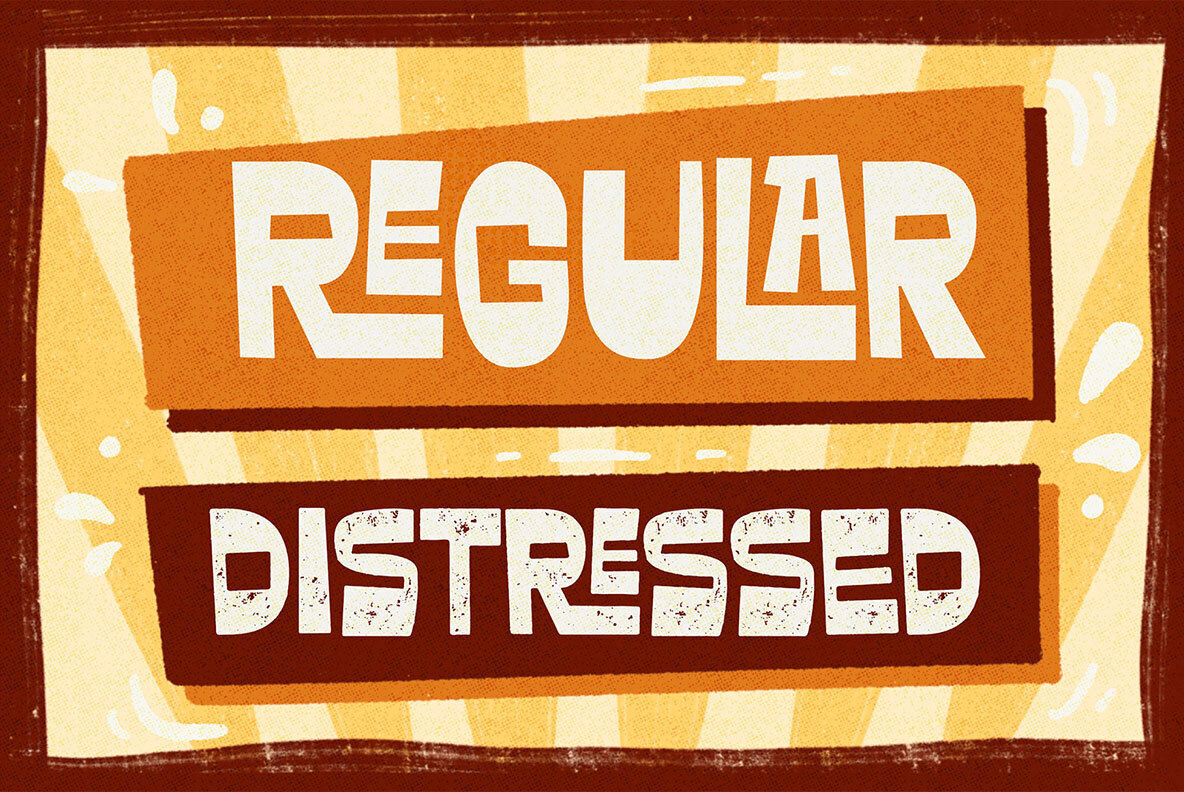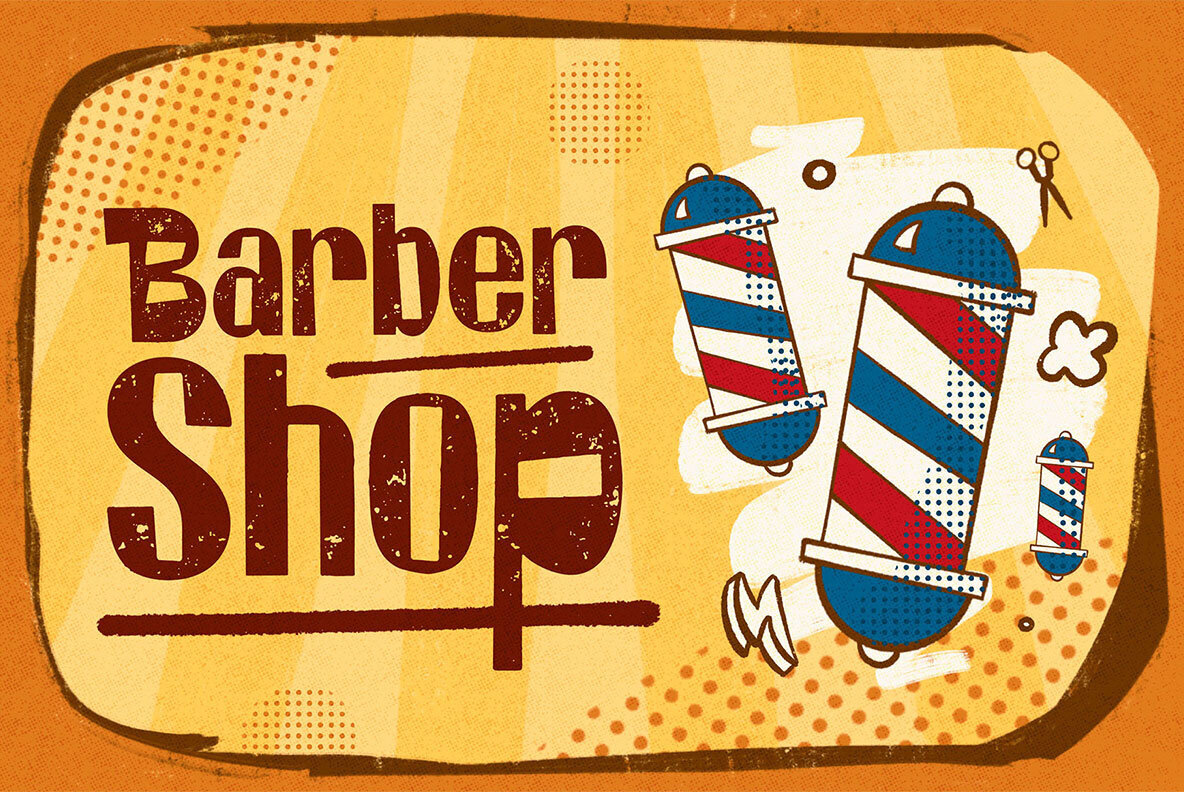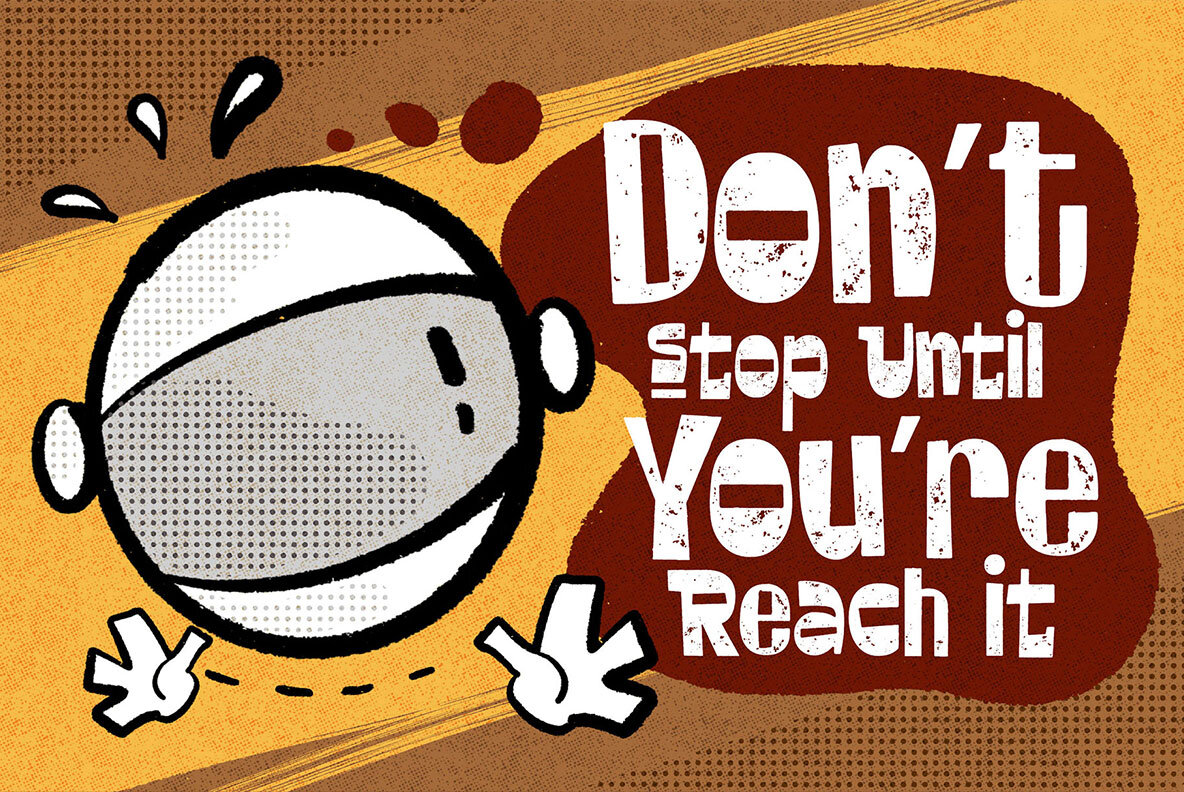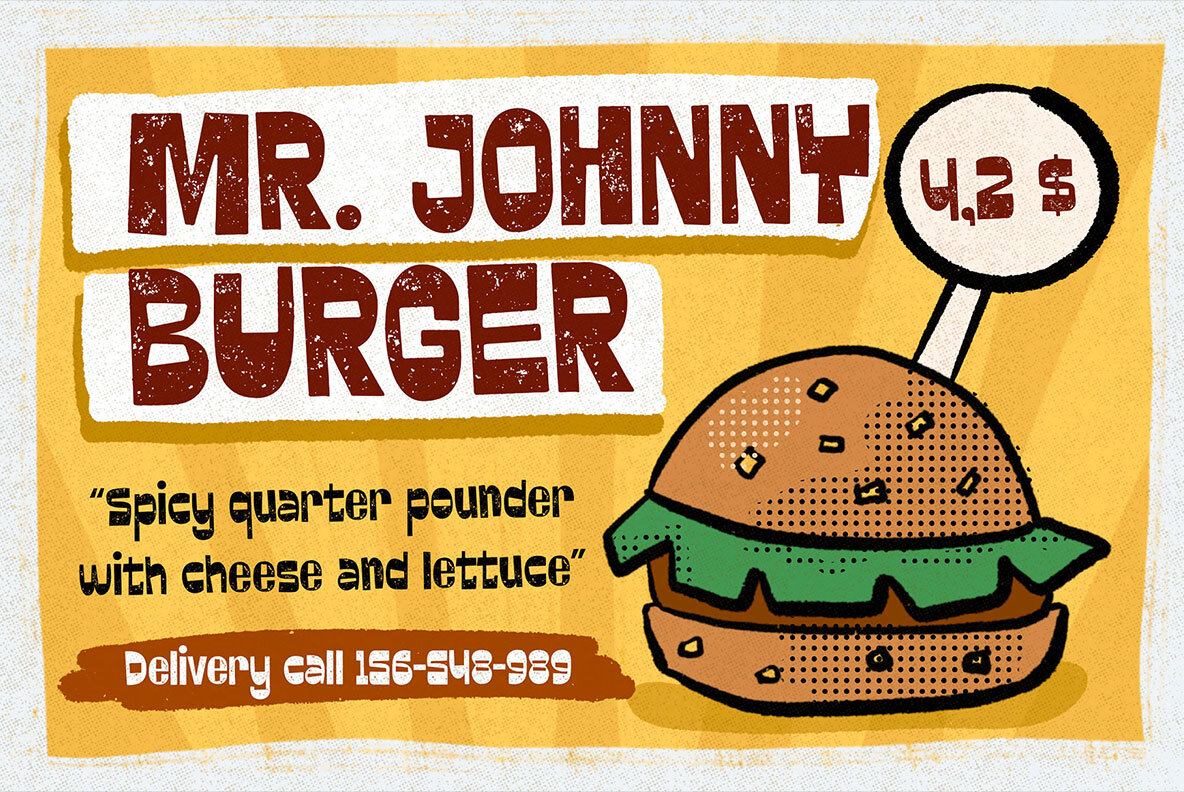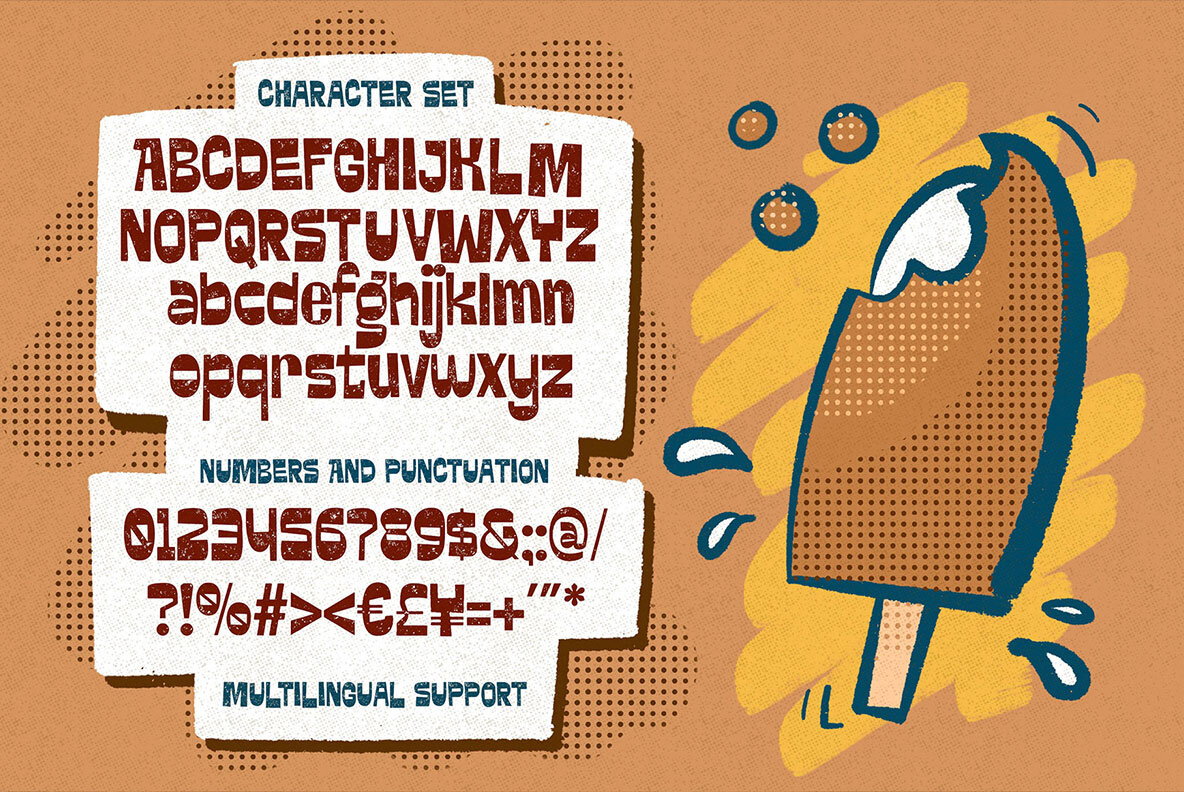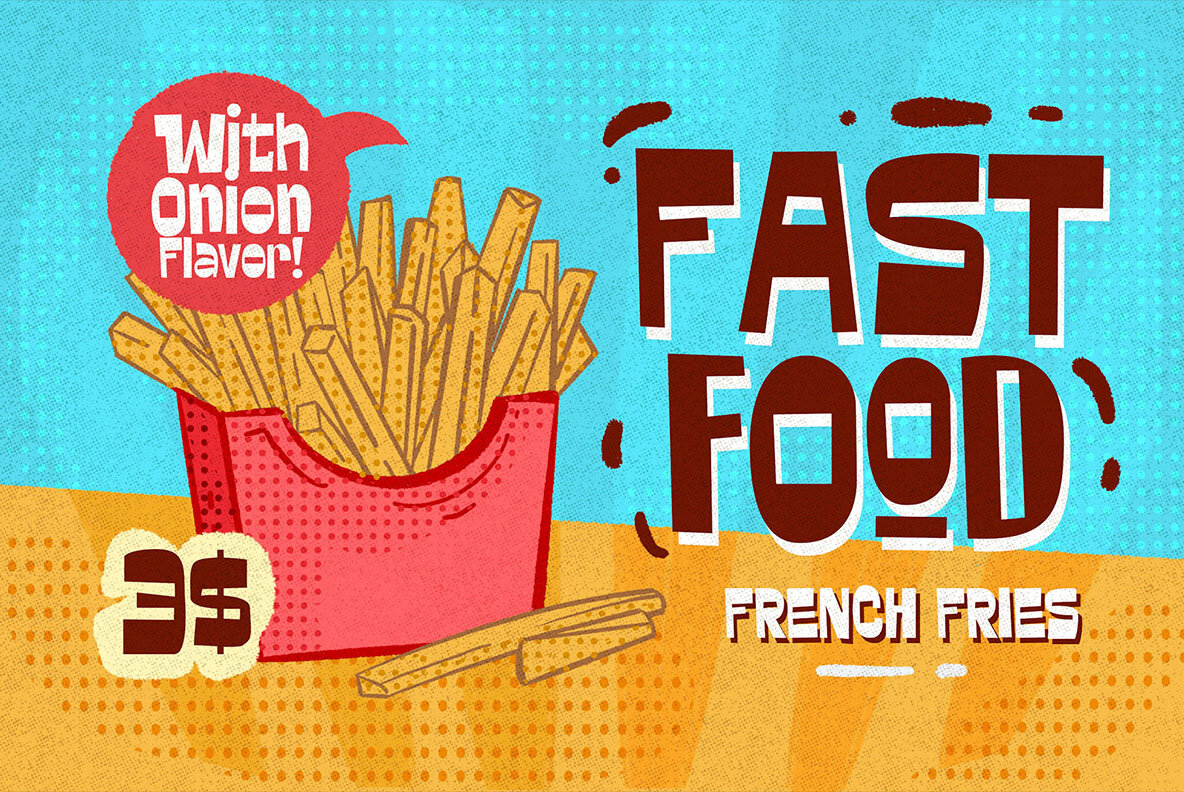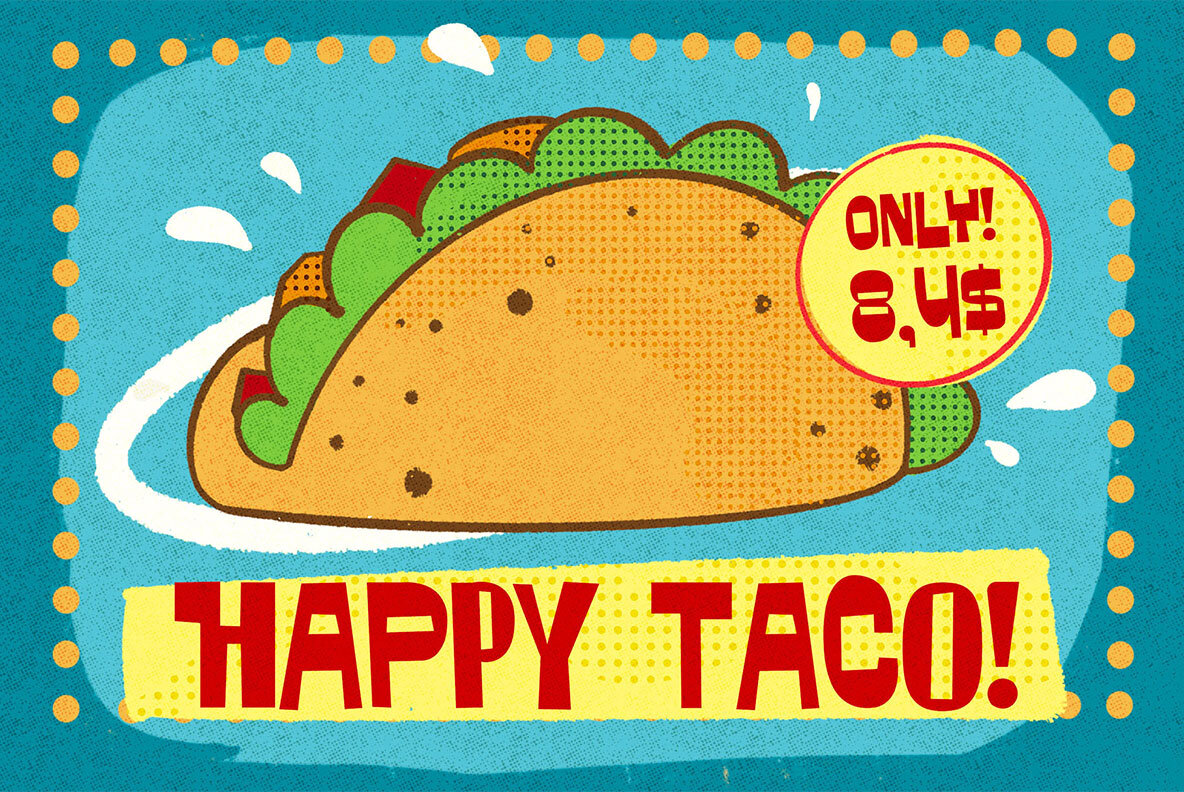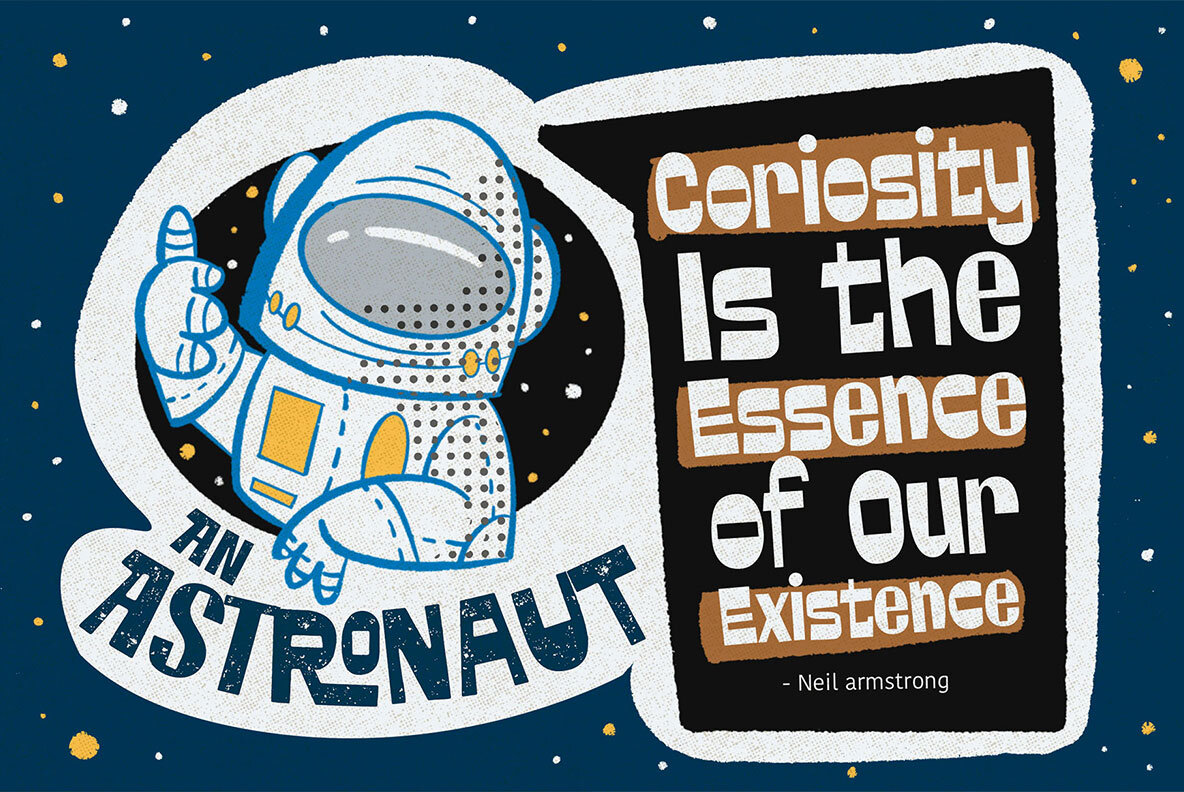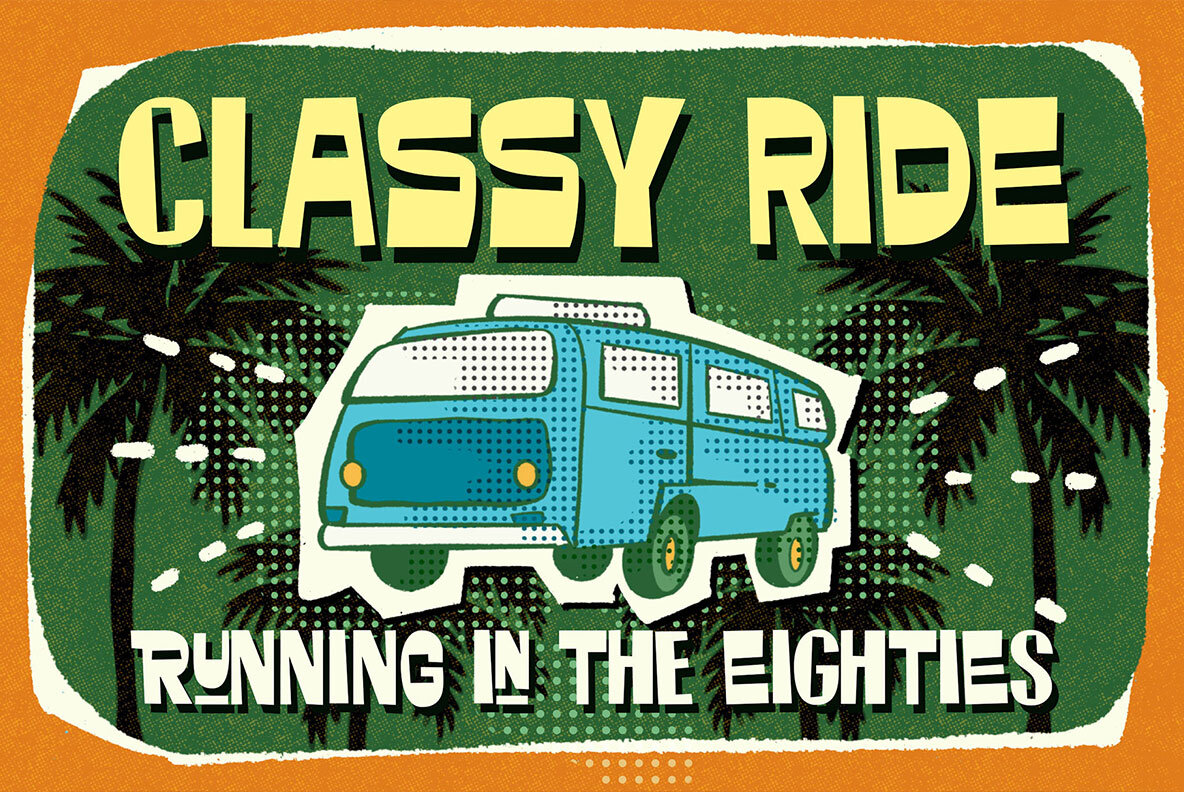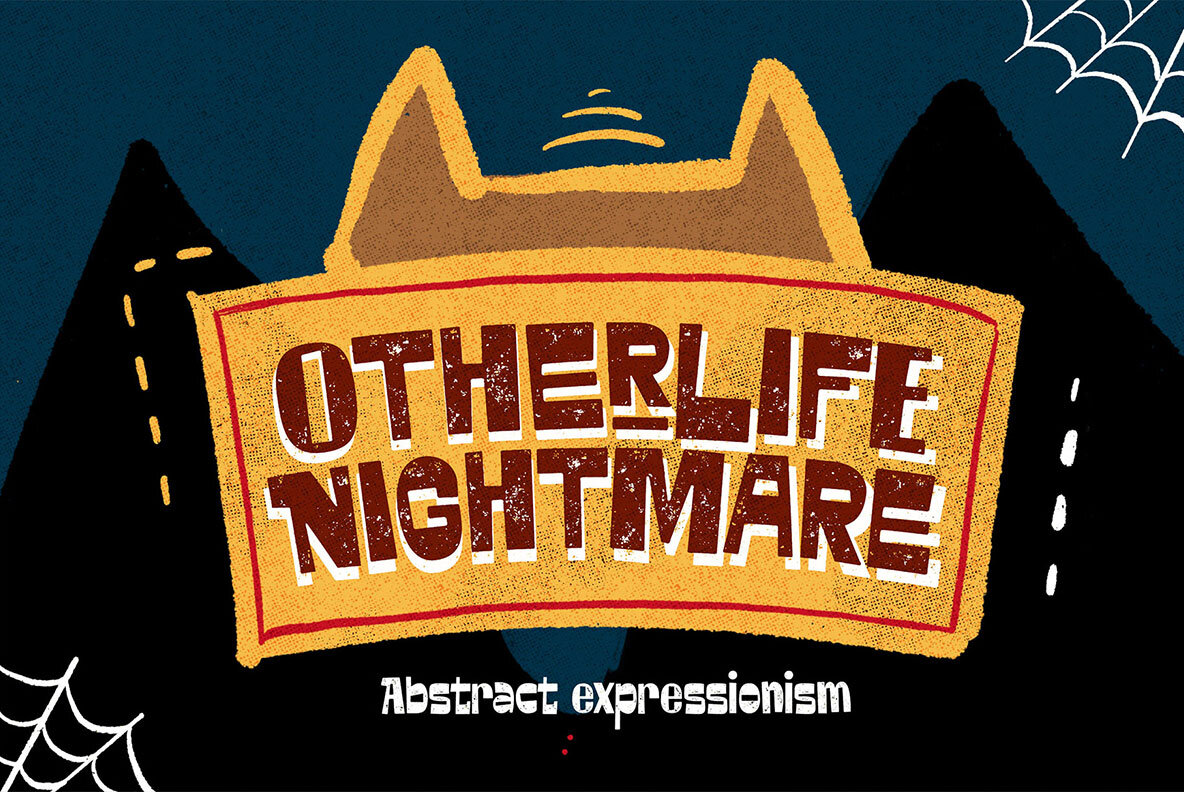
Krenzy Crispy Font
Krenzy Crispy Regular
Krenzy Crispy Distressed
Krenzy Crispy is a font that will make you hungry for more! inspire your creativity with this yummy and playful typeface. Perfect to use in food design, snack packaging or just about anything related to entertainment content like posters and comics.